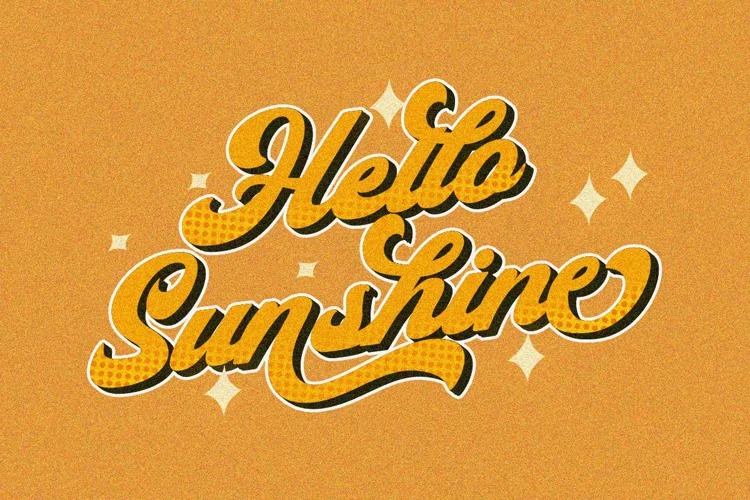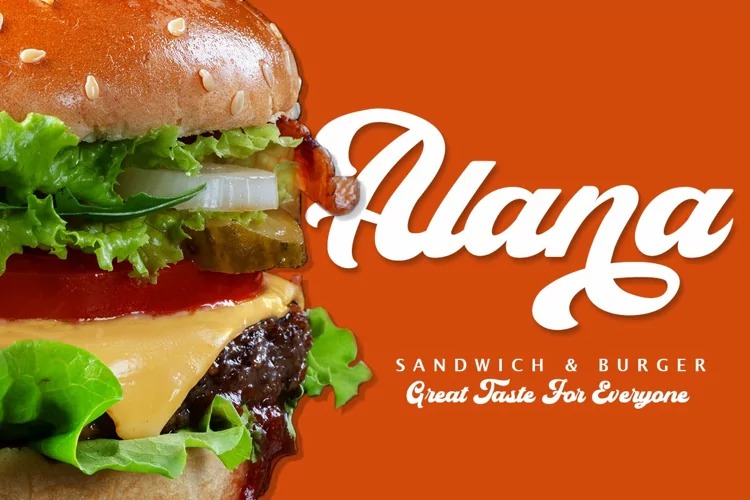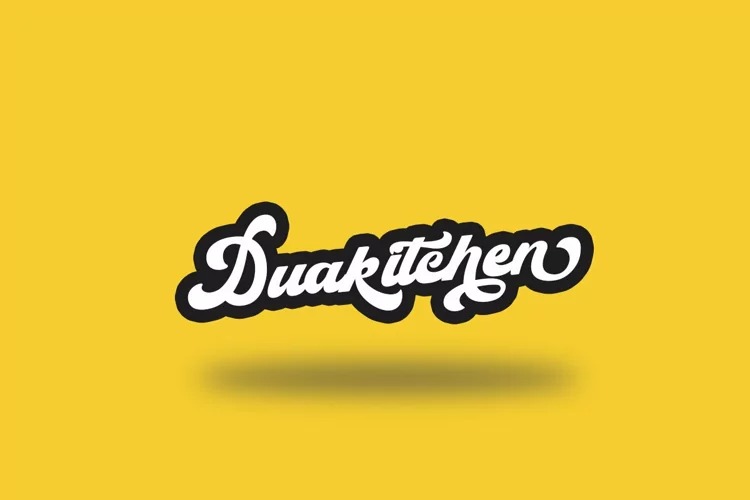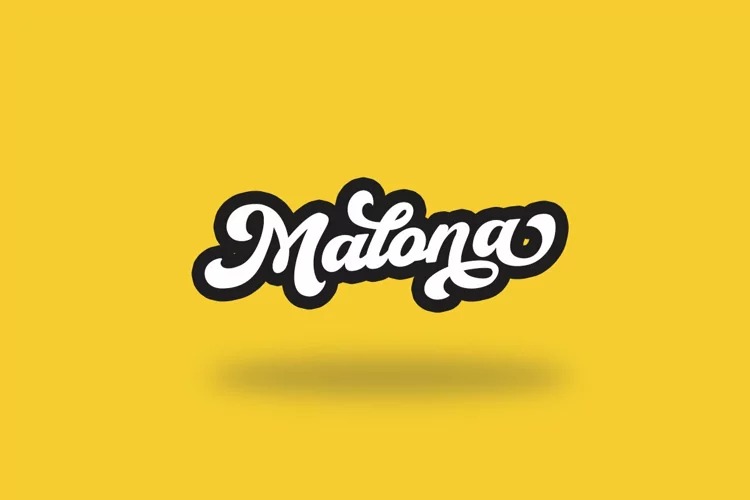
Malona Script Font
It’s a bold modern handwritten typeface created by Mevricks Studio with smooth handwritten flows. This font is suitable for those of you who want a design that displays an old-fashioned side but is still relevant for a charming modern look. there’s nothing wrong if you feel all the experience of using this font in your designs, make this font as one of the font collections on your computer